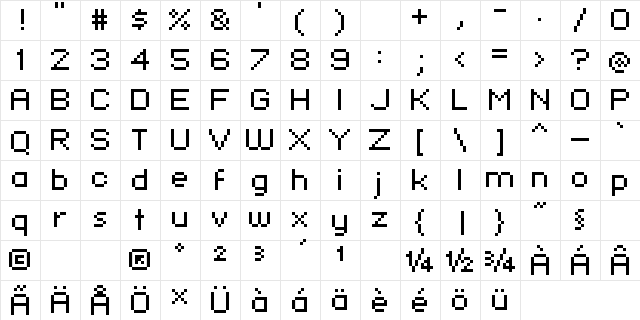
pixelFJ8pt1 Normal
Design Context for pixelFJ8pt1 Typeface
pixelFJ8pt1 is rooted in pixel-grid construction, making it a natural fit for game UI, retro computing aesthetics, and digital nostalgia projects.
A natural choice for retro game titles, chiptune music branding, 8-bit UI, and digital nostalgia projects.
Pro Tip: Pair pixelFJ8pt1 with flat colour palettes and simple geometric UI elements to reinforce its digital aesthetic.